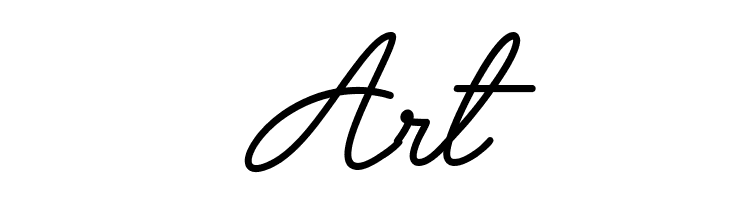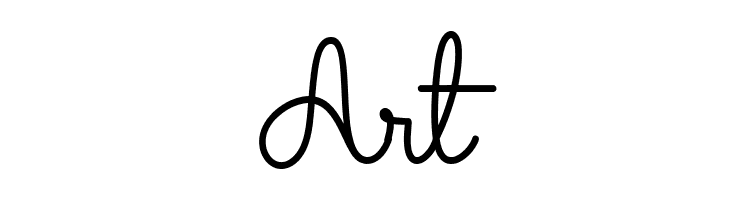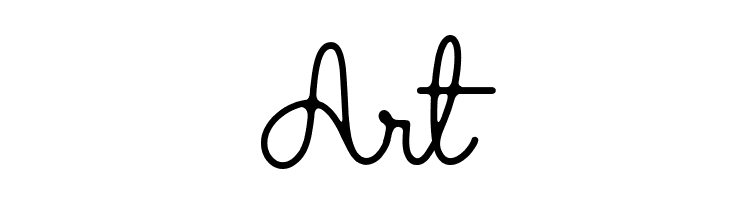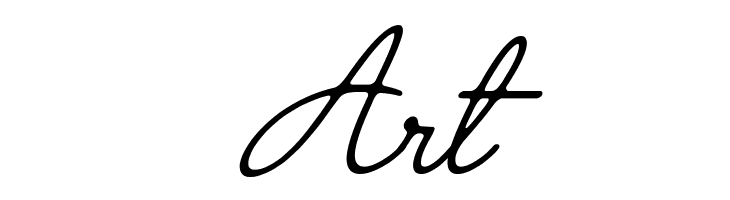
( Southype - southype.com )
A bold, geometric font with a modern and assertive style.
( Sronstudio - Yusron Billah )
A playful and elegant handwritten script font with smooth, flowing lines.
( Sronstudio - Yusron Billah )
A playful and elegant script font with fluid, connected letterforms.
( Sronstudio - Yusron Billah )
A flowing, elegant script font with connected letters and medium contrast.
( Sronstudio - Yusron Billah )
A flowing, cursive script with elegant loops and swashes.
A bold, gothic-inspired font with sharp serifs and a dramatic, hand-drawn style.
( Fonts by Kimberly Geswein - kimberlygeswein.com )
A playful, handwritten font with a casual and informal style.
( Fonts by Kimberly Geswein - kimberlygeswein.com )
A bold, playful handwritten font with rounded strokes and a lively, informal style.
( Fonts by Octotype | Thomas Boucherie )
A bold, hand-painted style font with an expressive and dynamic appearance.
( Fonts by Gyom Seguin - last-soundtrack.daportfolio.com )
A bold, distressed font with a grunge texture and urban appeal.